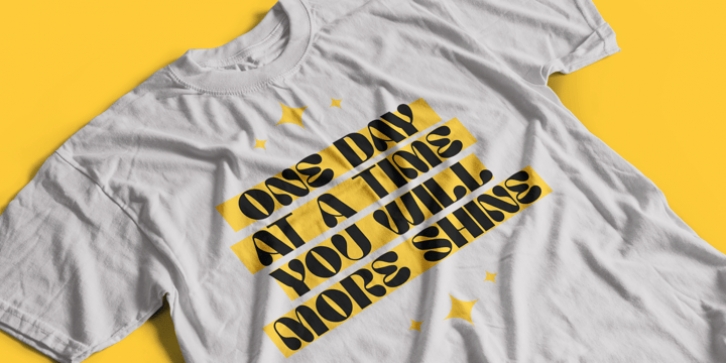
Kiera is an ideal choice for various display purposes, including album covers, posters, labels, t-shirts, apparel, signage, quotes, logos, greeting cards, and logotypes. Additionally, this typeface font supports multiple languages, making it suitable for a wide range of design projects.
In conclusion, Kiera - Display Typeface Font is an exceptional font that combines vintage typography with modern design elements to create a unique and versatile display typeface that works for a wide range of design projects. Whether you are working on album covers, posters, labels, t-shirts, or any other display project, Kiera will make your designs stand out. With its multiple language support and Open Type features, Kiera is a must-have for any designer looking for a modern and unique display typeface.